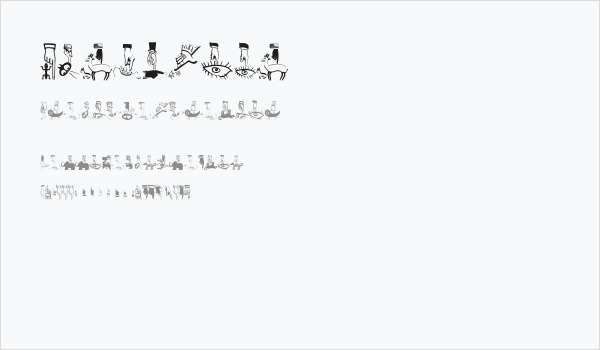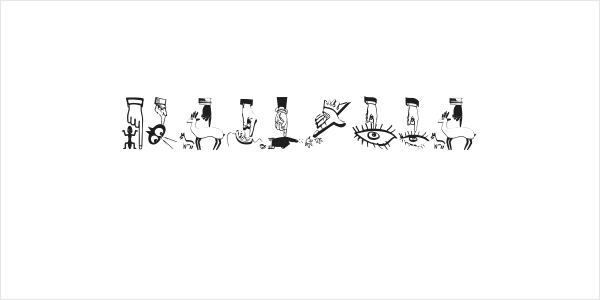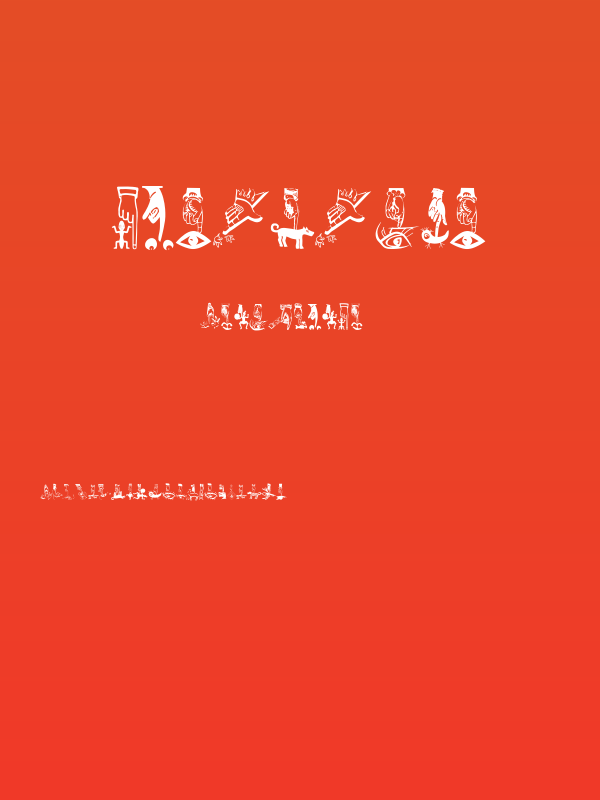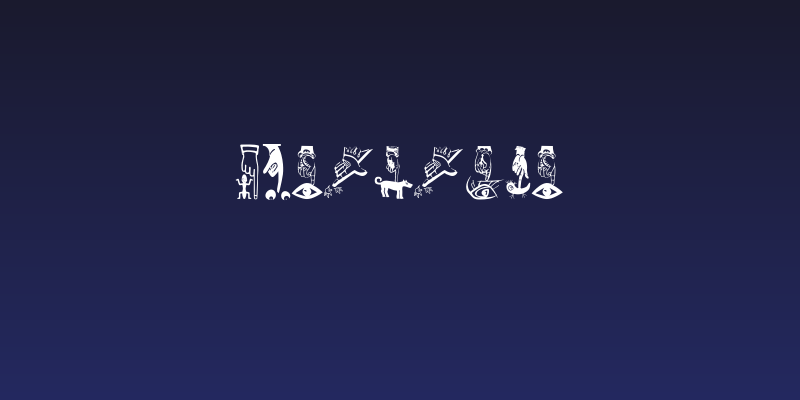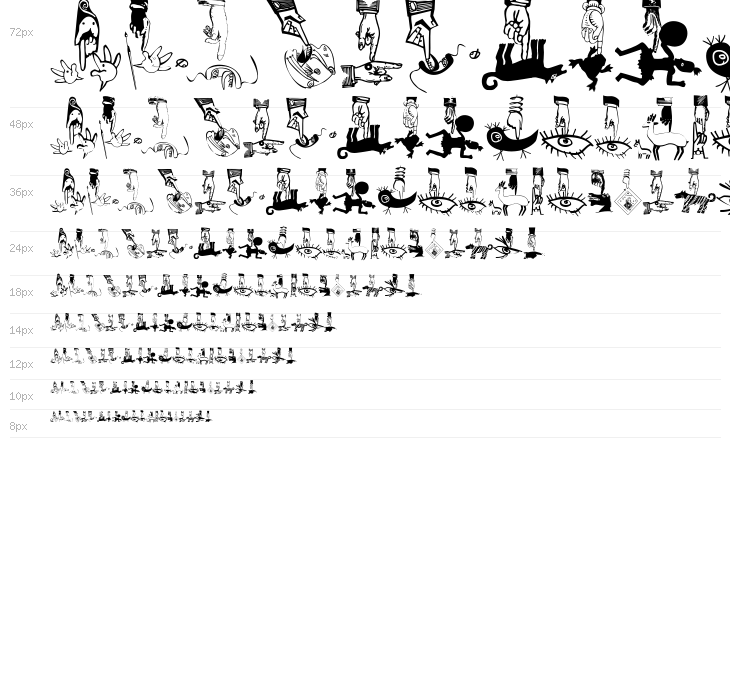
HandsDown Font
HandsDown Description
This font is a highly creative and illustrative typeface, where each character is represented by a unique hand-drawn illustration. The designs incorporate various elements such as hands, eyes, animals, and abstract shapes, making it more of an art piece than a traditional font. The characters are whimsical and playful, with a strong emphasis on visual storytelling. Each letter and symbol is distinct, offering a wide range of visual interpretations. This font is not suitable for body text due to its intricate designs but serves as an excellent choice for artistic and decorative purposes.
| Use Case | Logos, Posters, Artistic Designs |
| Proposed Projects | Ideal for creative projects such as posters, album covers, art installations, and any design work that requires a unique and artistic touch. |